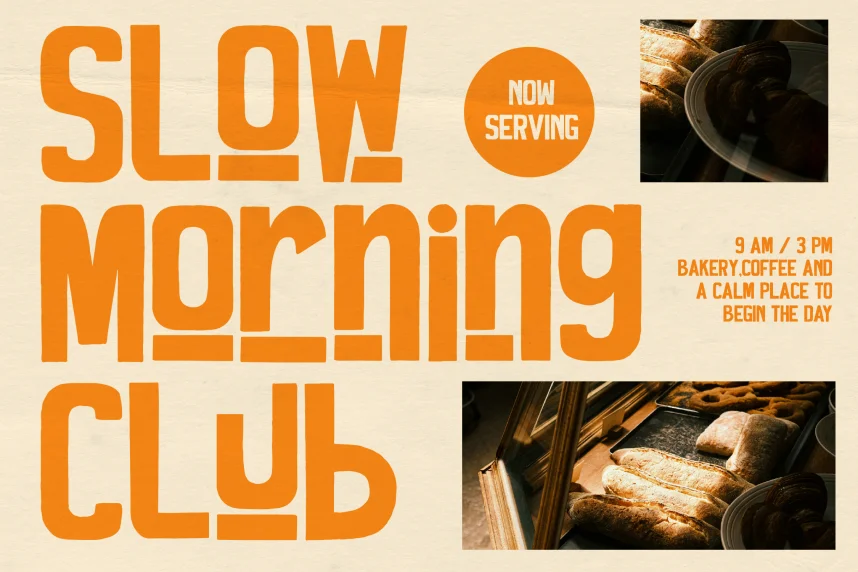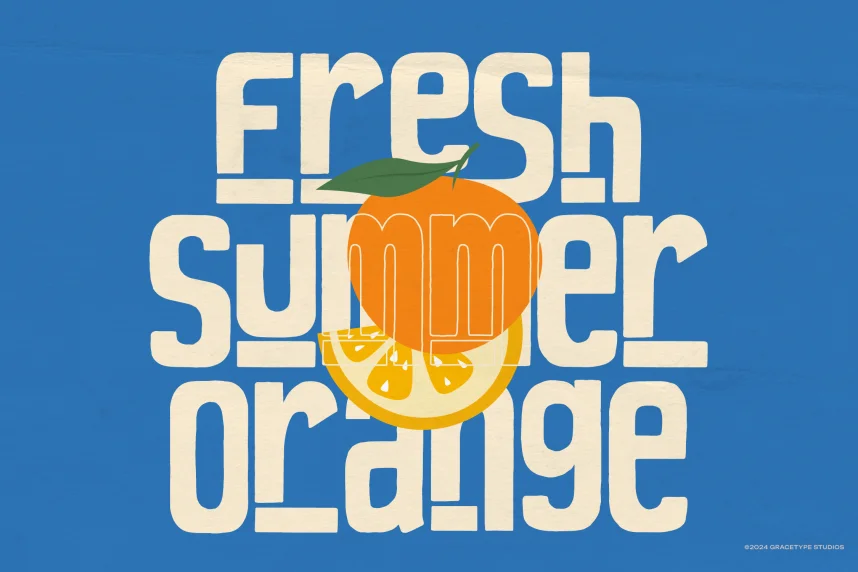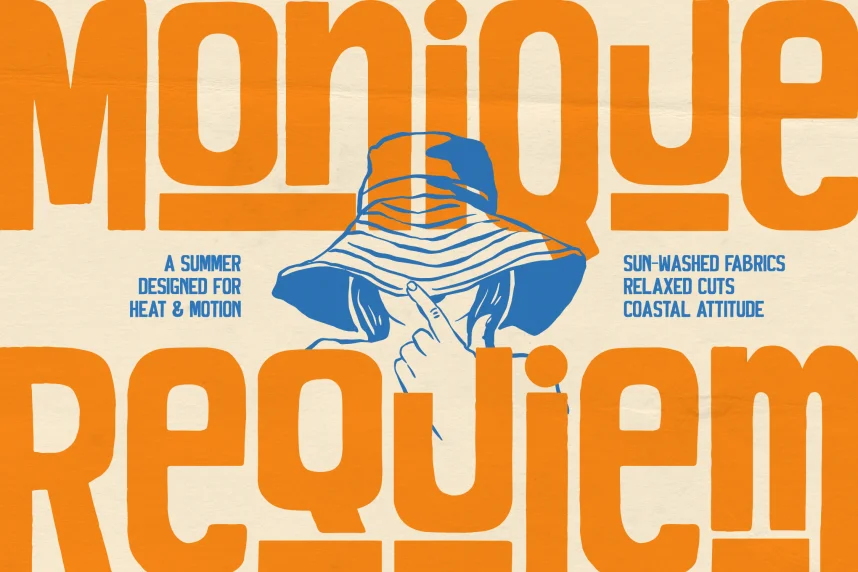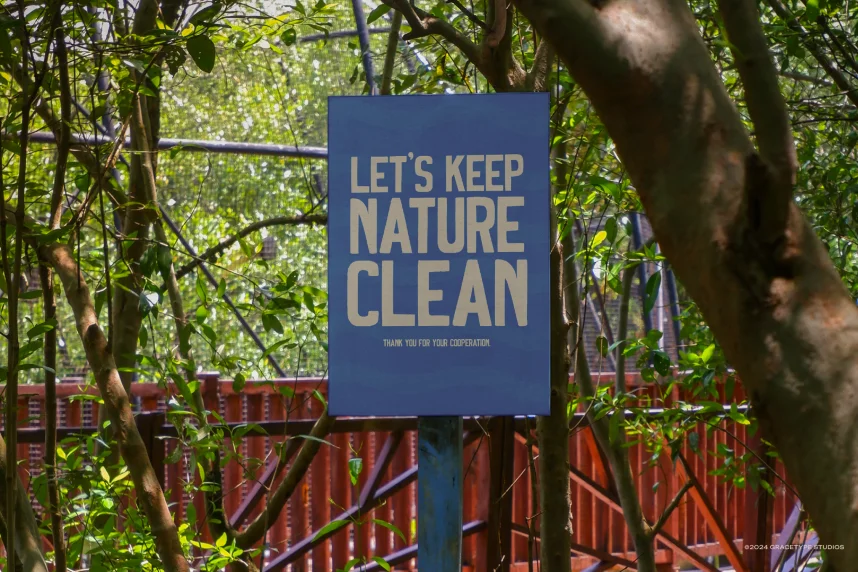
Homie Waves Font helps designers add a relaxed, handwritten tone without sacrificing clarity. It is often used when brands need a friendly look for logos, packaging, or social content while keeping text readable.
Homie Waves is a script and handwritten display font with smooth curves and flowing strokes. The letters mimic natural pen movement, using connected forms and soft edges. Stroke contrast stays moderate, which prevents characters from blending together at medium sizes. Some versions include alternate glyphs or ligatures to avoid repetition in repeated words.
This font works best at display sizes rather than long paragraphs. Designers use it for logo design, product packaging, YouTube thumbnails, Instagram posts, and casual apparel graphics. For balance, Homie Waves pairs well with a neutral sans-serif font used for body text or supporting details.
Homie Waves supports standard Latin characters and common punctuation, making it suitable for everyday branding needs. Its informal structure gives projects a personal tone without heavy ornamentation.